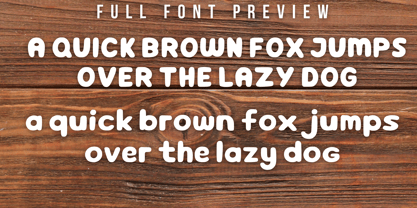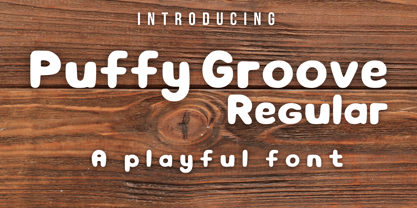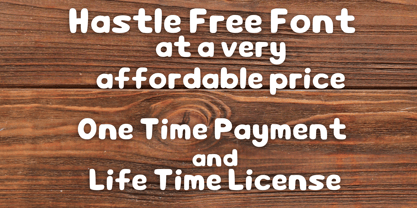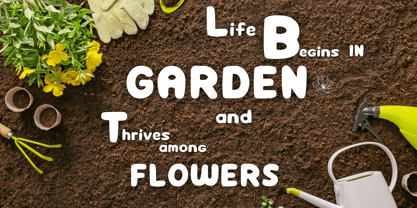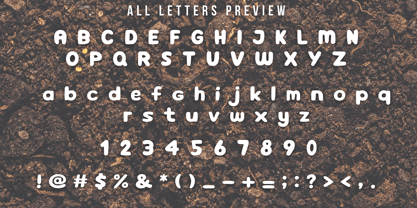
Puffy Groove
The Puffy Groove Font Family was designed by and published by FontForge Studio. Puffy Groove contains 1 styles. More about this family
Puffy Groove is a fun, playful font designed with soft, rounded edges and bold character strokes. Its cheerful and bouncy style makes it perfect for children’s designs, comic-style layouts, posters, and any project that needs a lively and lighthearted feel. The smooth, thick lines provide excellent readability at any size, while its quirky shapes bring an energetic and approachable personality to your designs. Bubble Bold includes uppercase and lowercase letters, numbers, and a full set of punctuation, giving you everything you need for creative, vibrant typography!